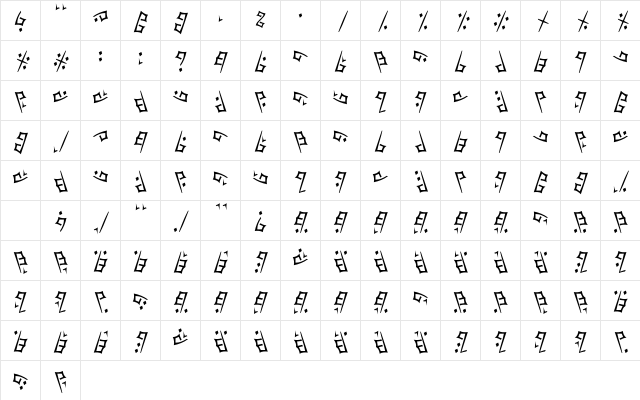
Drow Angular Regular
| Foundry | Urhixidur Fonts |
| Designer | Daniel U. Thibault |
Design Context for Drow Angular Typeface
Drow Angular is a composed and adaptable typeface that performs quietly and consistently across a wide range of design contexts.